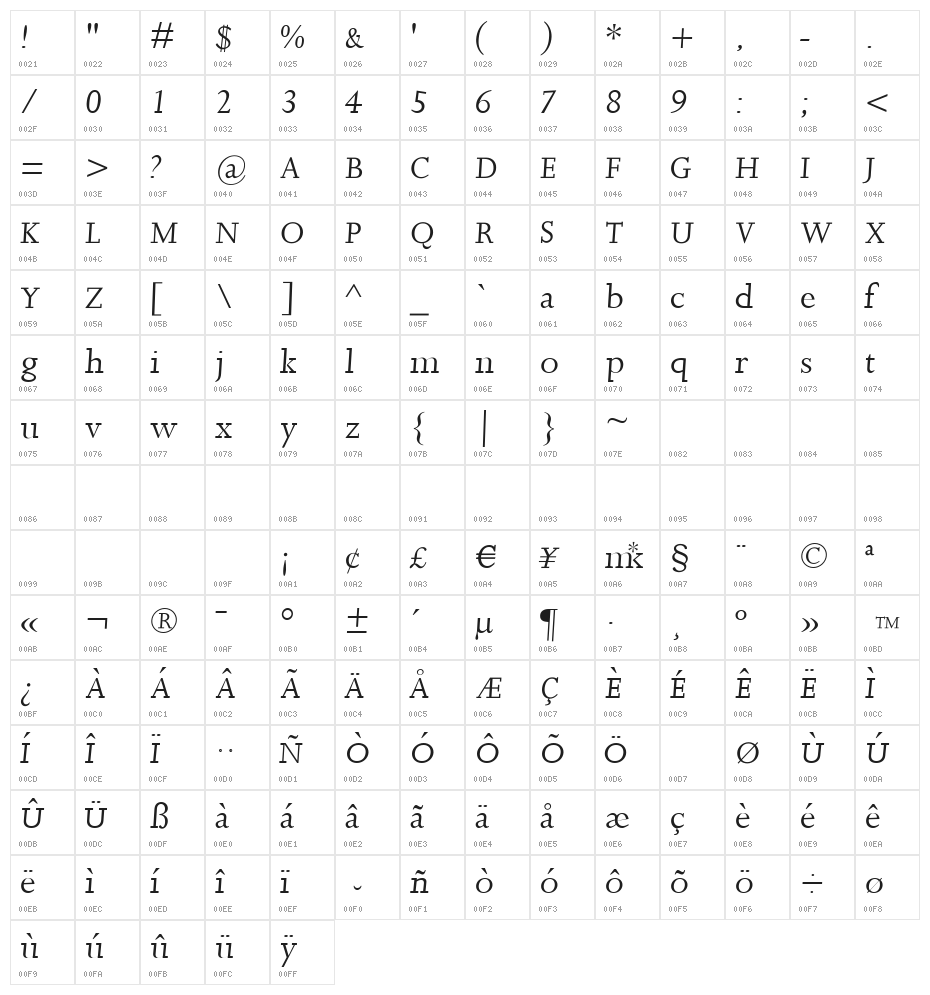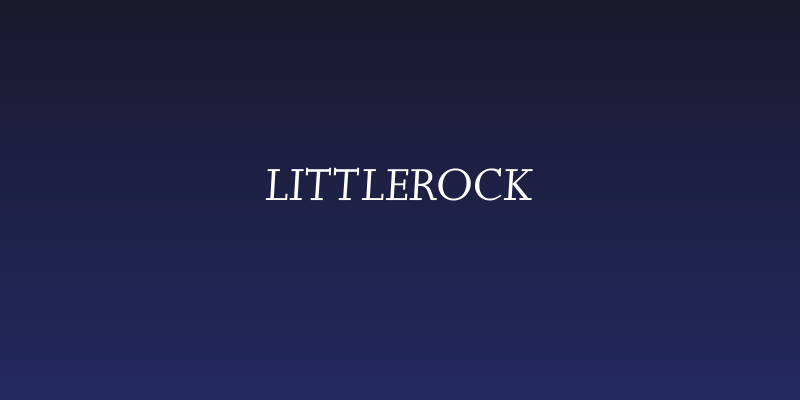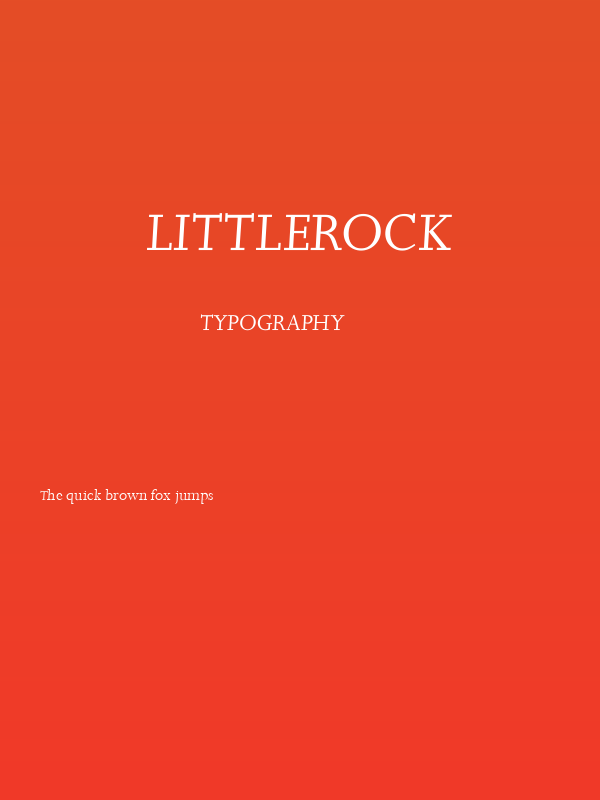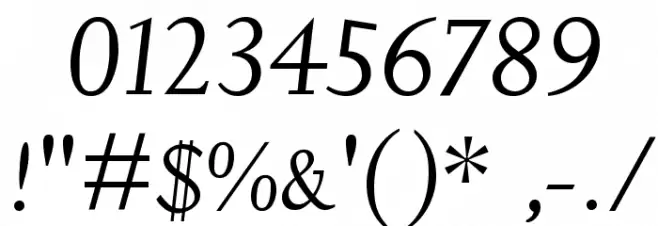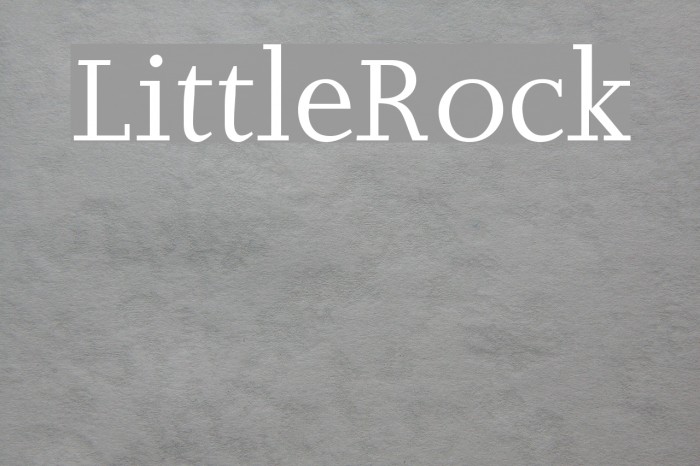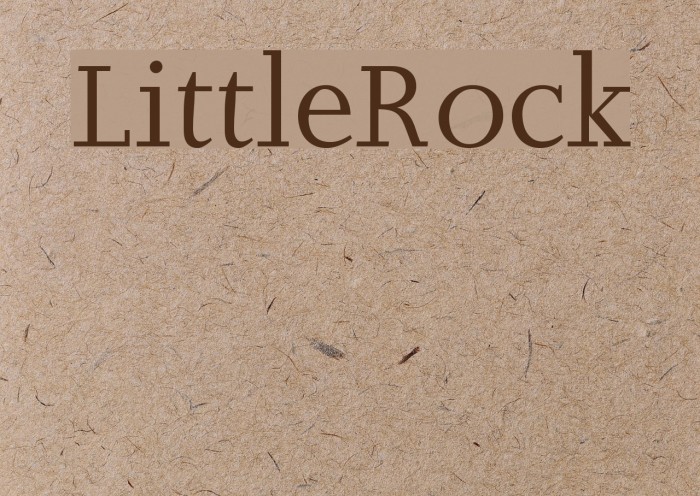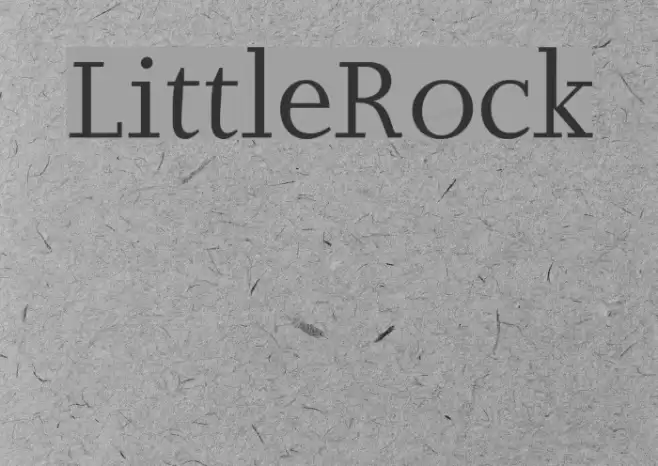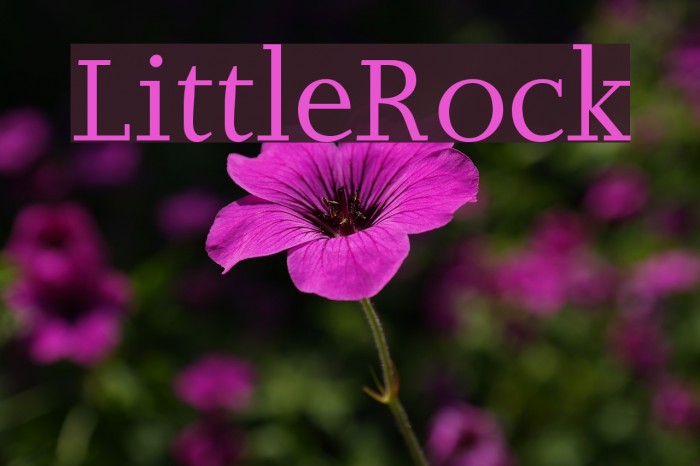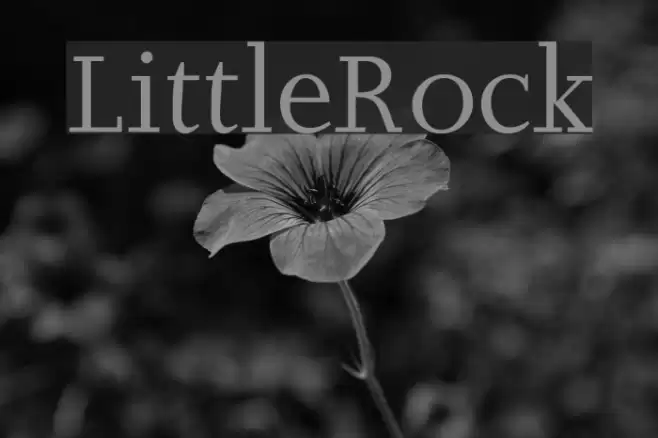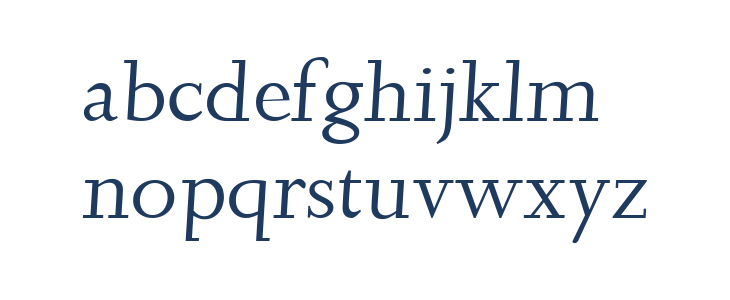
LittleRock Font
LittleRock Description
This serif font exudes a classic elegance with its well-defined strokes and balanced proportions. The uppercase letters are stately and commanding, while the lowercase letters maintain a graceful flow. The numerals are clear and distinct, ensuring readability. Special characters are crafted with precision, adding to the font's versatility. The overall design is timeless, making it suitable for a wide range of applications. The contrast between thick and thin strokes is moderate, providing a pleasing visual rhythm without overwhelming the eye. This font is ideal for projects that require a touch of sophistication and tradition.
| Proposed Projects | Ideal for book covers, formal invitations, branding materials, and editorial design. |